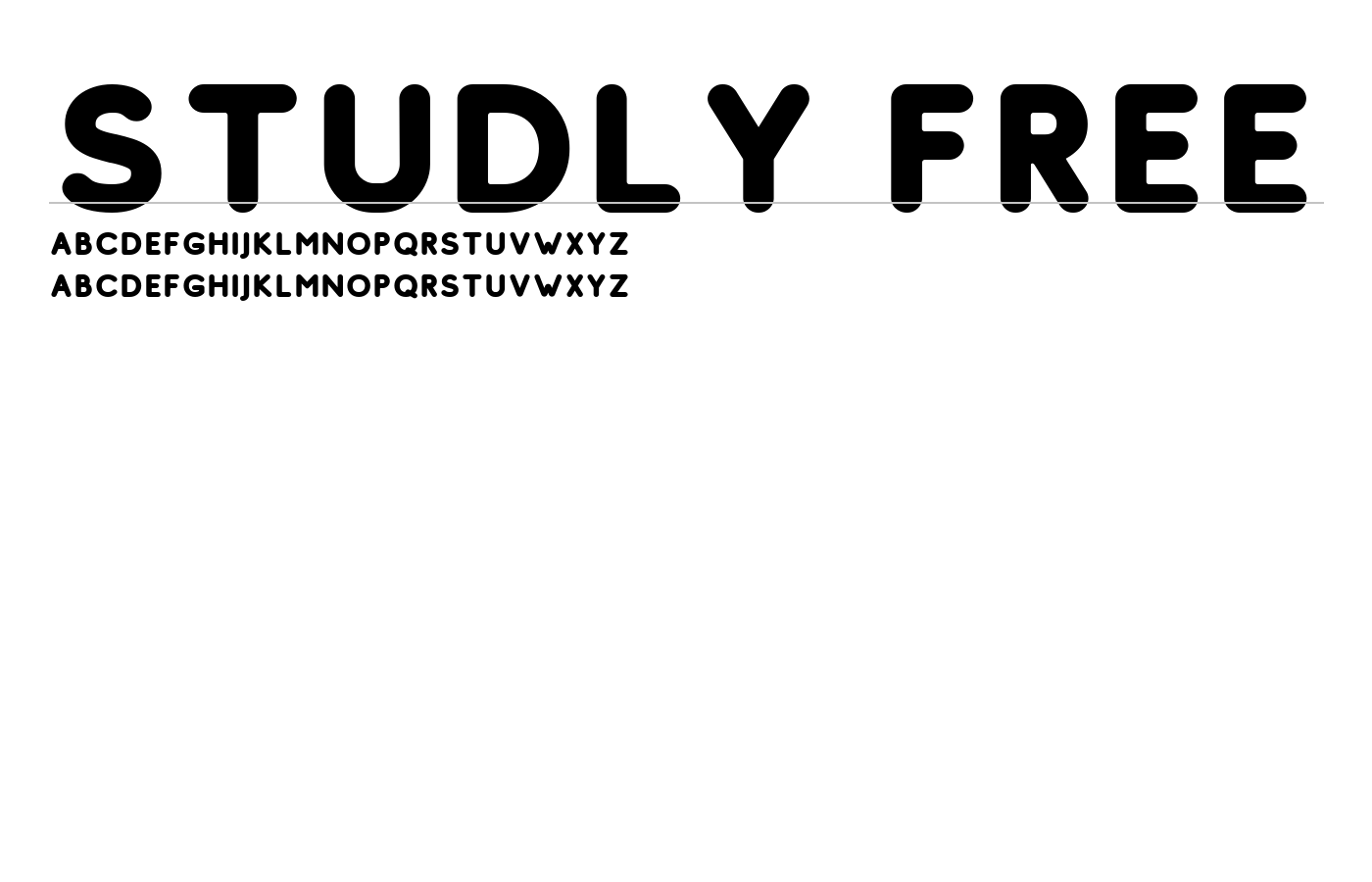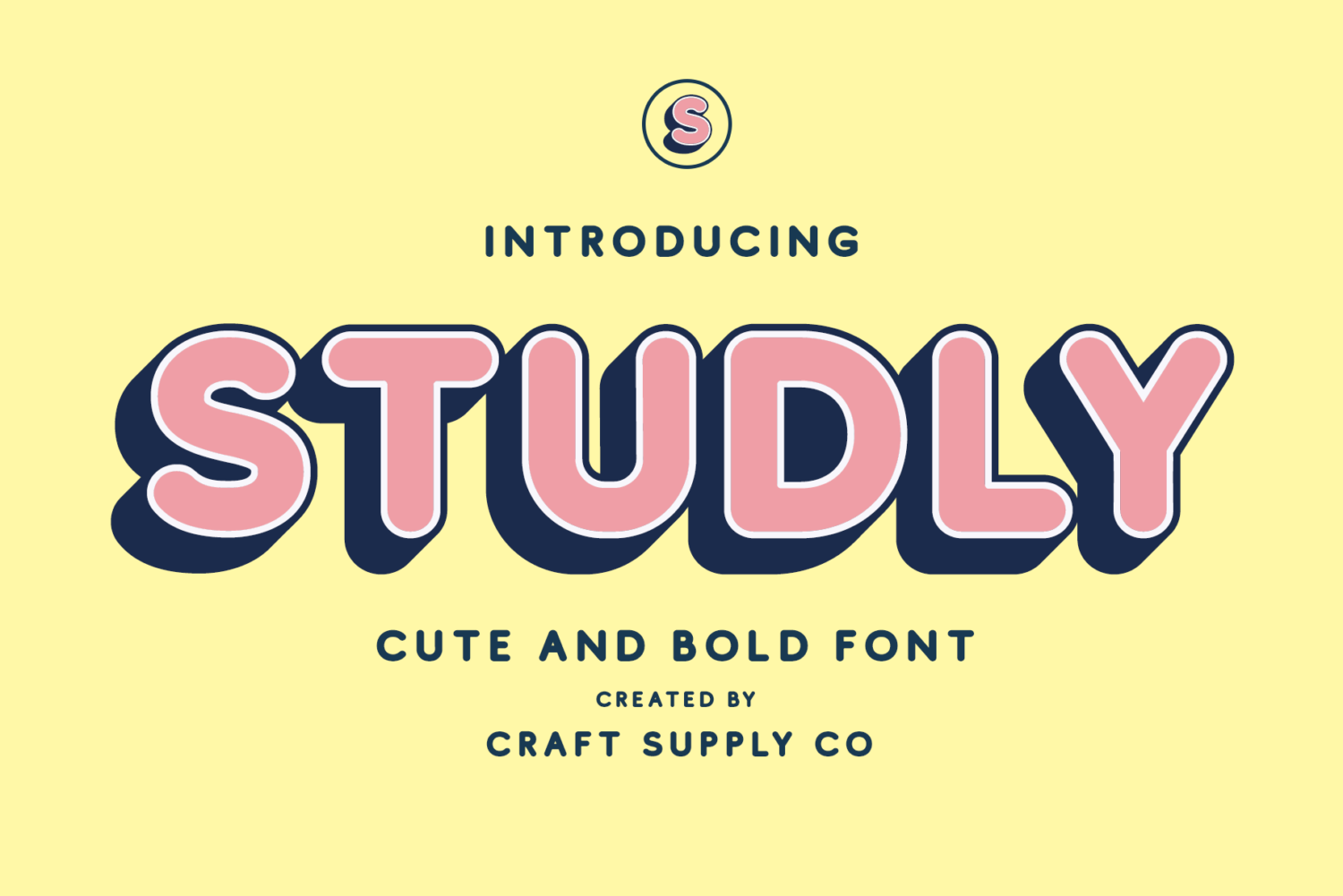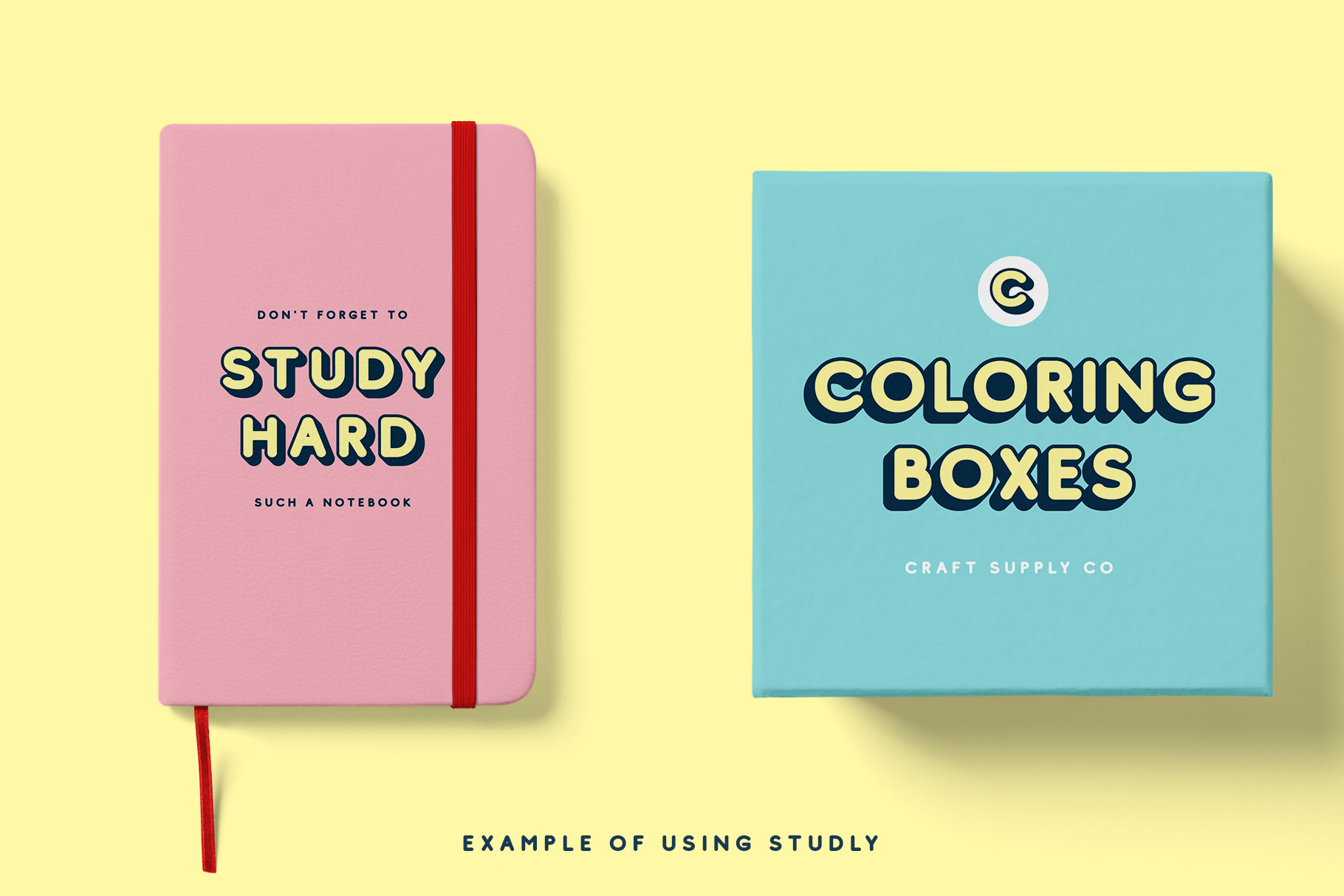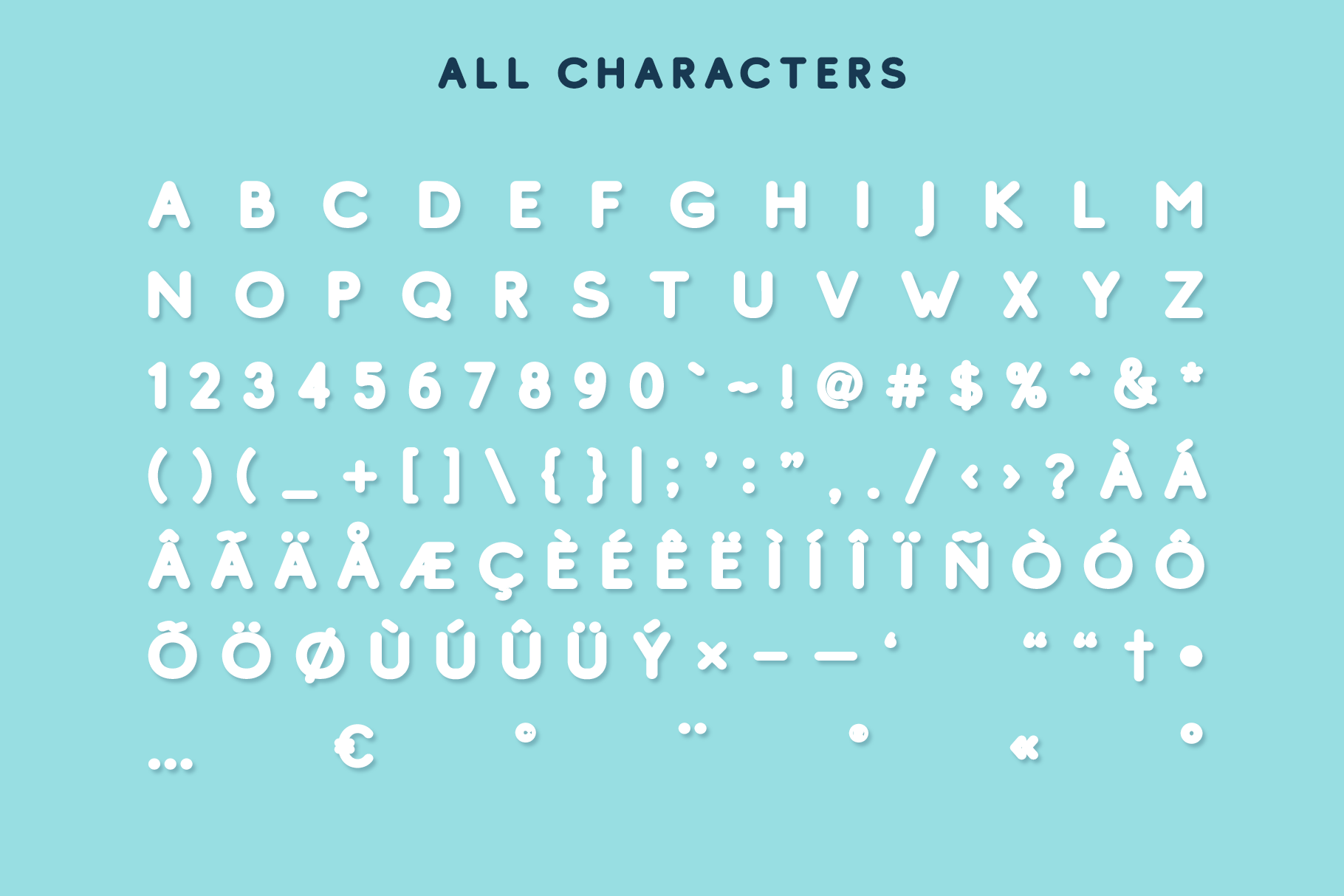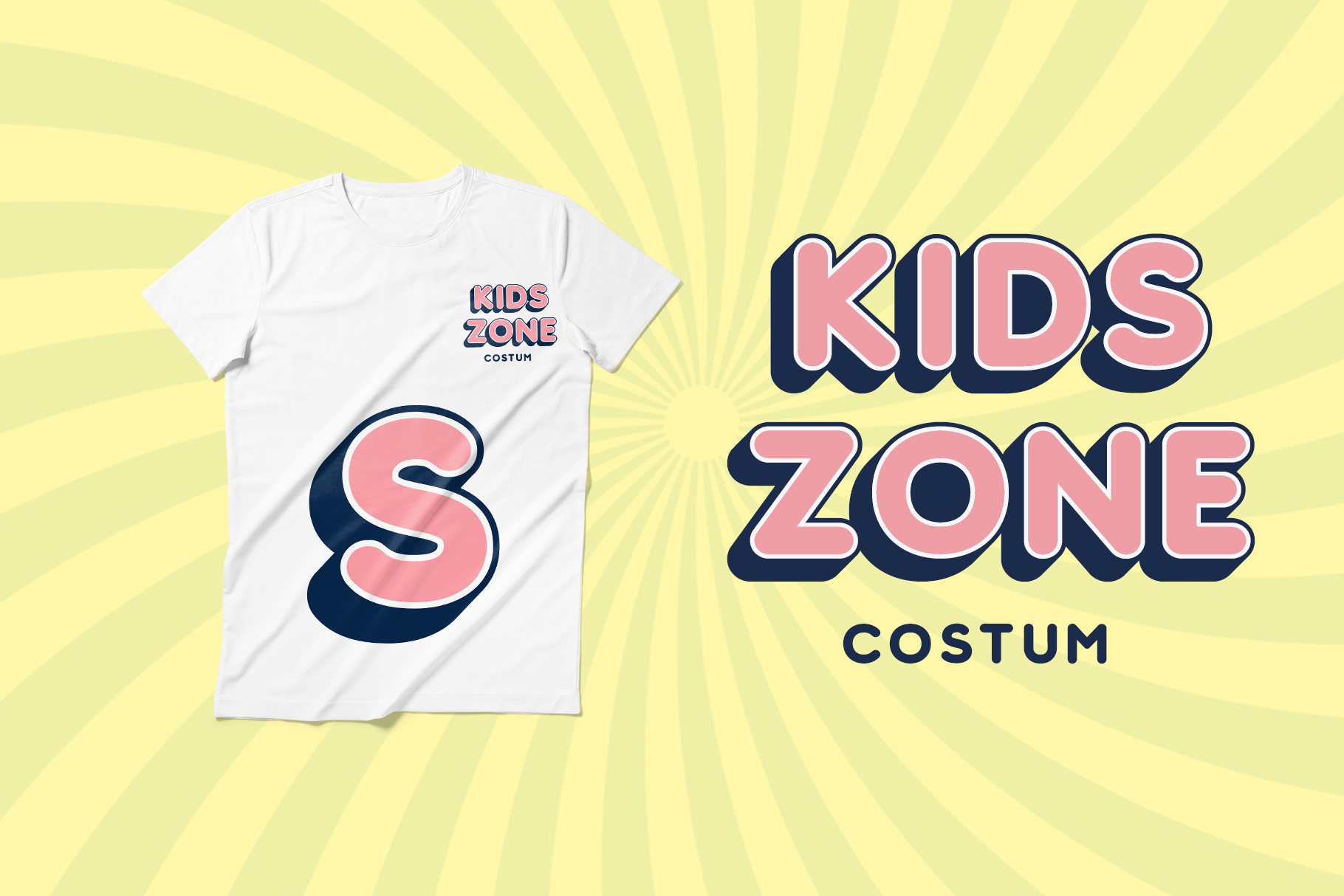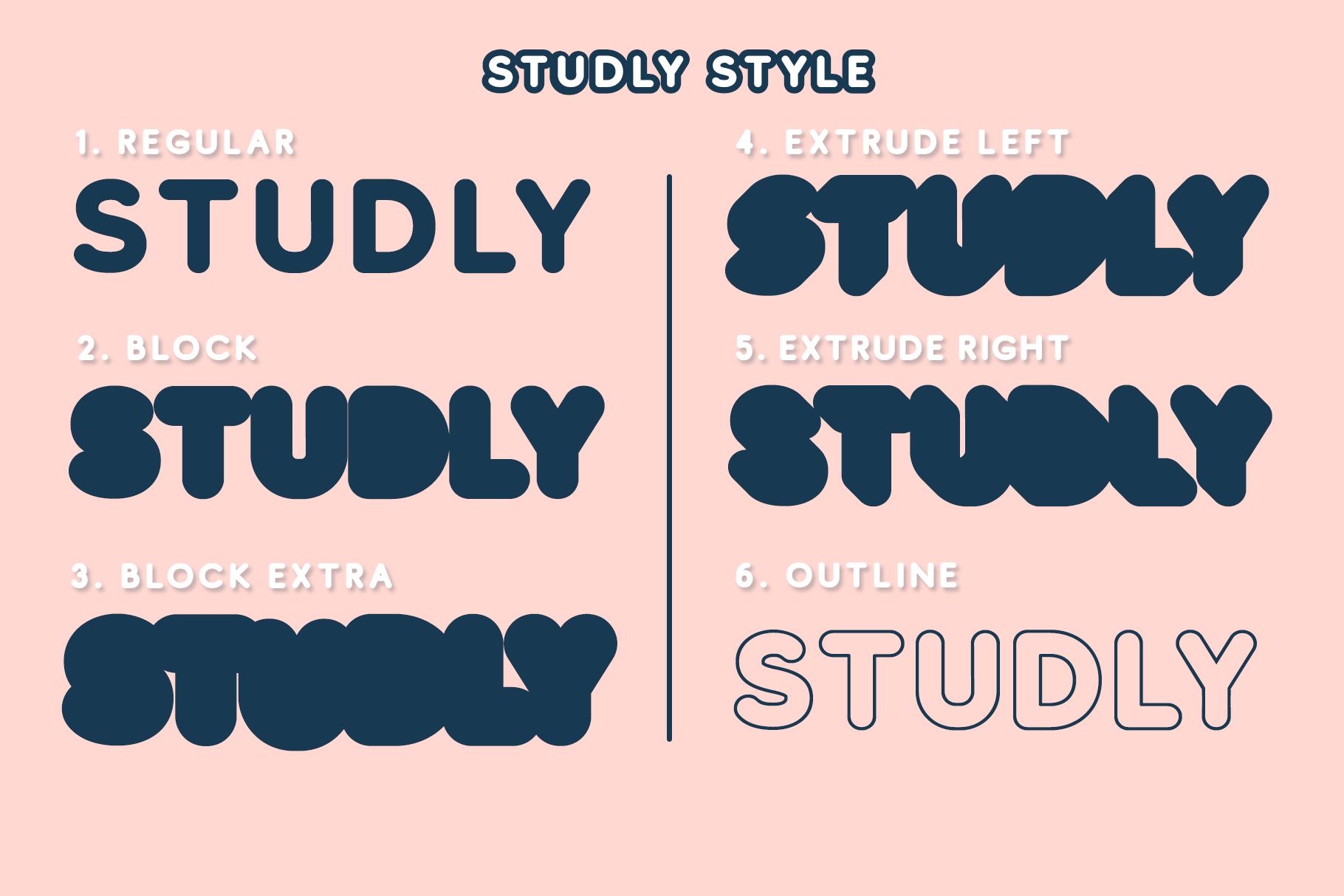
Studly is a bold, rounded sans-serif font with a strong, playful character. Its thick strokes and smooth curves create a friendly and approachable feel, making it ideal for headlines, logos, and branding that want to convey a modern yet inviting tone. This font works especially well in casual and creative contexts where clarity and warmth are key.
Studly
About Studly